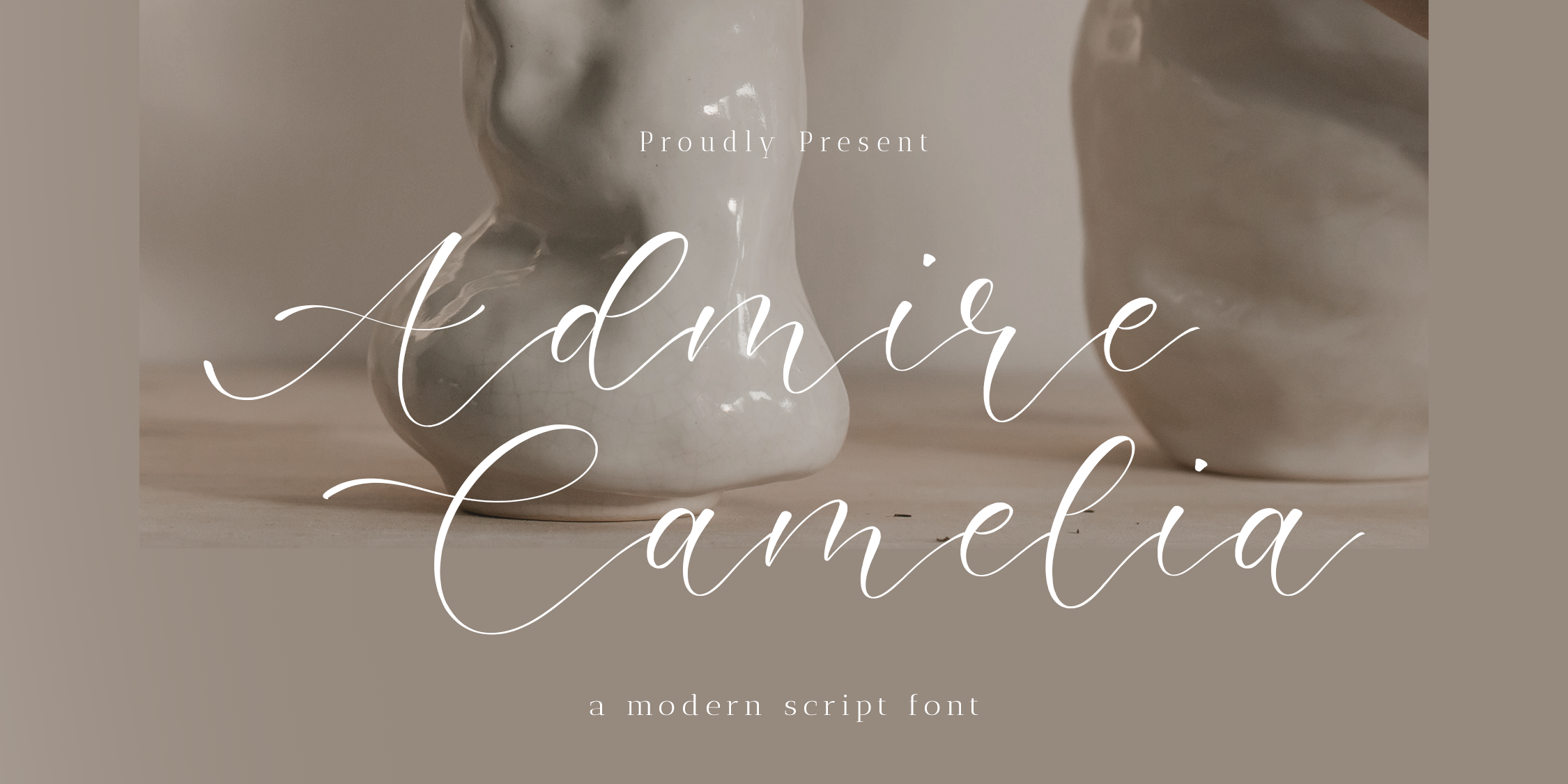
Admire Camelia Font is perfect for floral branding, botanical products, garden centers, wedding invitations, spring campaigns, beauty brands, and nature-inspired design applications. This elegant typeface brings botanical grace and floral sophistication to bloom-worthy design projects.
Admire Camelia Font is exciting because it captures the delicate beauty of camellia flowers with its graceful letterforms that convey natural elegance and botanical charm while maintaining exceptional readability and floral appeal across nature-inspired applications.
The Admire Camelia Font family includes regular and decorative variations with floral character elements and botanical styling details. This blooming collection provides designers with elegant options for creating memorable and naturally beautiful brand experiences.
Admire Camelia Font Free Download provides access to a botanically crafted typeface that embodies the elegant beauty and natural grace of camellia flowers and botanical design. This graceful font features delicately designed letterforms with floral details that create immediate associations with natural beauty, botanical elegance, and garden sophistication. The typeface showcases organic proportions and floral aesthetics that enhance nature-inspired communications while maintaining professional functionality and broad appeal. Its botanical character makes it particularly suitable for garden brands and nature companies that require typography capable of conveying natural beauty, floral elegance, and botanical sophistication. Admire Camelia Font delivers exceptional floral impact for applications where harsh fonts feel inappropriate for nature communications and botanical lifestyle branding. The font's botanical appeal and floral aesthetic make it an essential tool for designers working on projects that require typographic expression of natural beauty, garden elegance, and floral sophistication that resonates with audiences seeking authentic nature experiences and botanical visual communication.